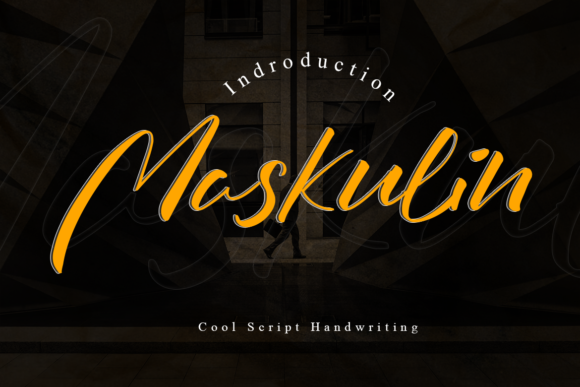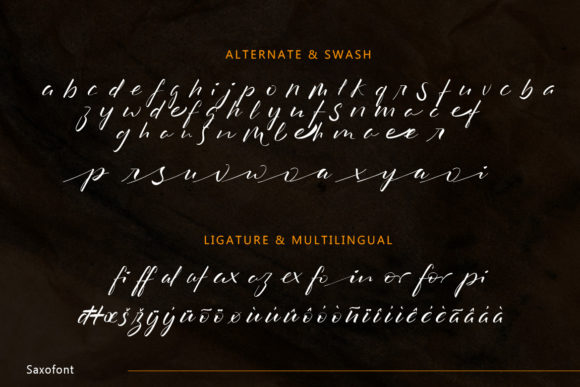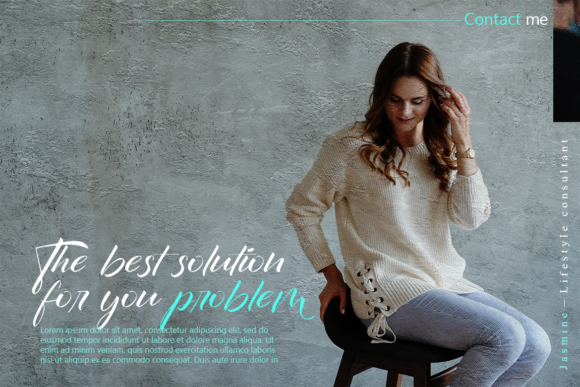
About Maskulin Font
Maskulin is a modern handwritten font. This font’s versatility will appeal to a wide range of crafty ideas, from letterheads and titles, to stationery.